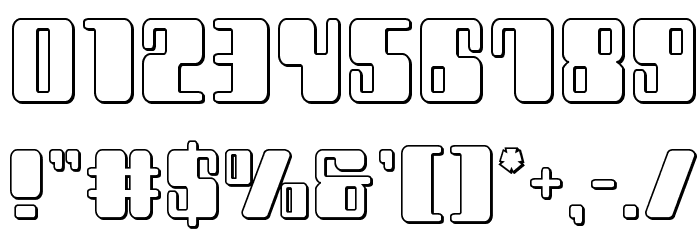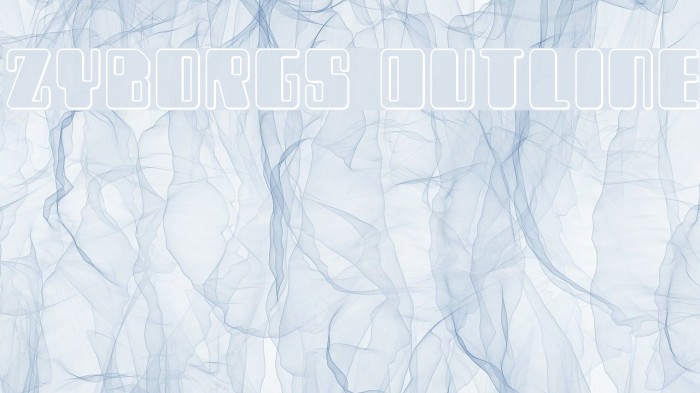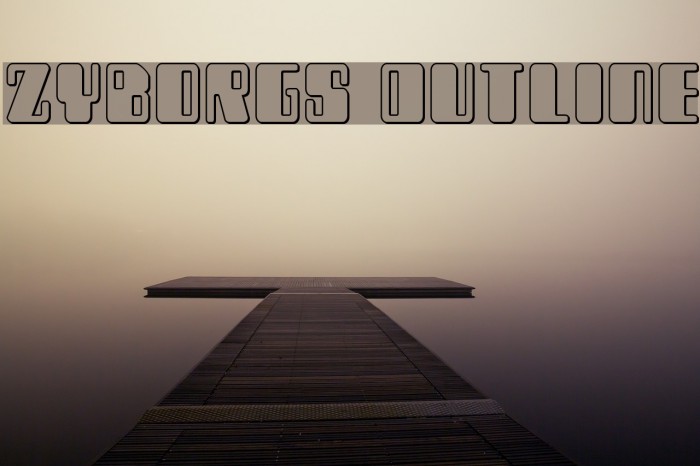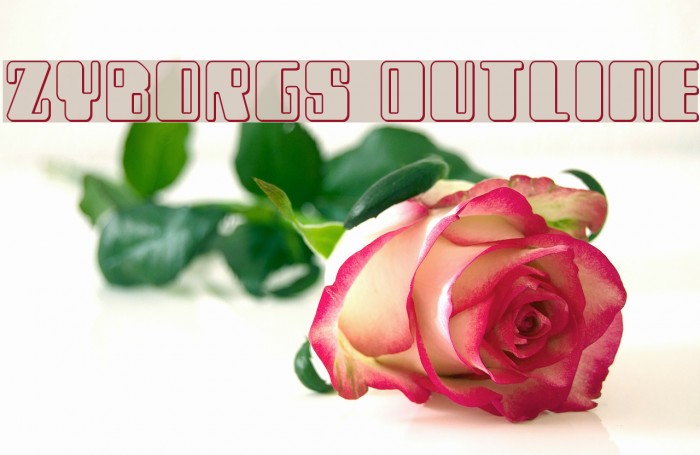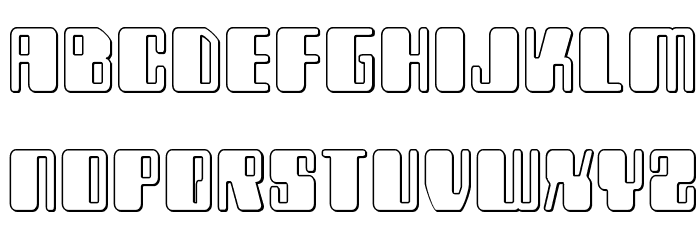
Zyborgs Outline Font
This font features a bold, futuristic outline style with geometric shapes and sharp angles. The characters are designed with a consistent width, giving it a uniform appearance. The uppercase and lowercase letters share a similar structure, enhancing its cohesive look. The numbers and special characters maintain the same outline style, ensuring a seamless integration across all elements. This font's unique design makes it stand out, ideal for projects that require a modern and edgy aesthetic.
A bold, futuristic outline font with geometric shapes and sharp angles.
• Proposed Projects: Ideal for sci-fi themed designs, tech branding, video game titles, and futuristic posters.